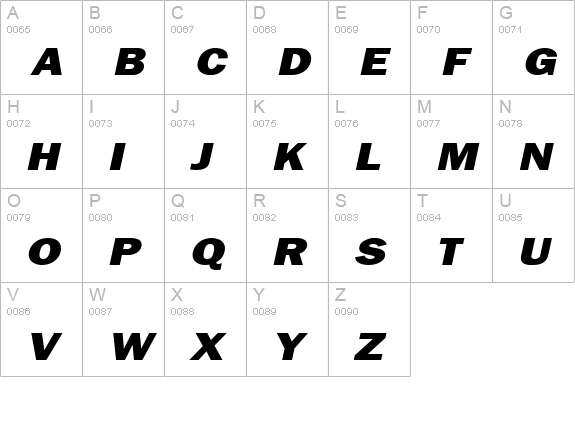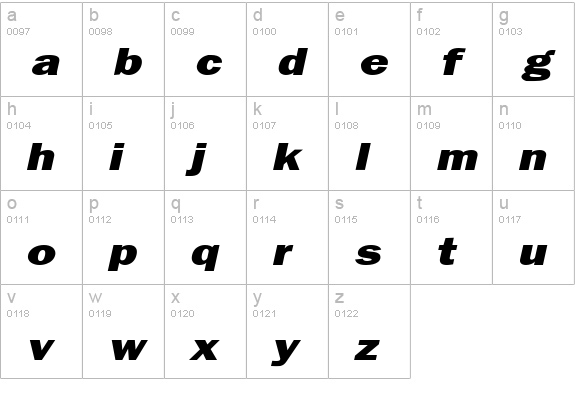
Francis Gothic Wide Italic is a distinctive, extended-width, italic variant in the Francis typeface family \xE2\x80\x94 well suited to design and typography projects.
Introducing Francis Gothic Wide Italic font - a sleek and modern typeface that strikes the perfect balance between elegance and sophistication. With its bold yet refined appearance, this font is sure to make a statement in any design project. The italic style adds a touch of flair and dynamism, making it ideal for adding emphasis and style to your text. What sets Francis Gothic Wide Italic font apart is not just its striking aesthetics, but also its versatility. Whether you're working on a branding project, editorial design, or any other creative endeavor, this font will elevate your work to the next level. And the best part? Francis Gothic Wide Italic font is completely free to download at FontsMarket.com, making it accessible to designers and creatives of all levels. Don't miss out on this opportunity to add a touch of sophistication to your designs with this stunning font. Download it today and let your creativity soar!